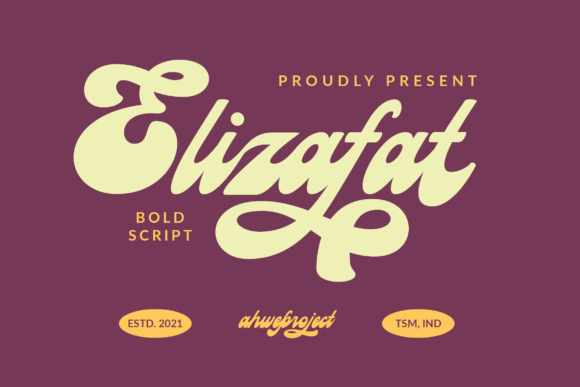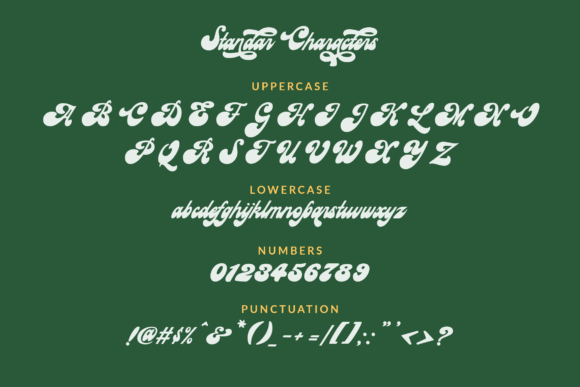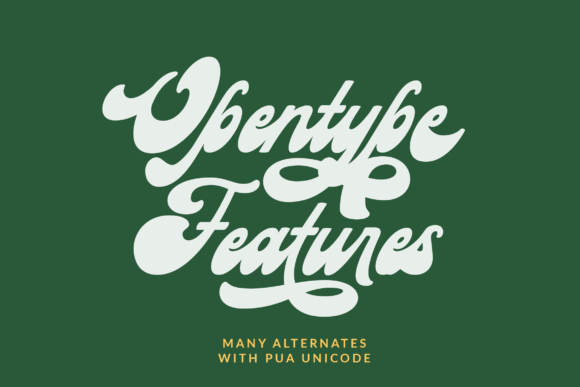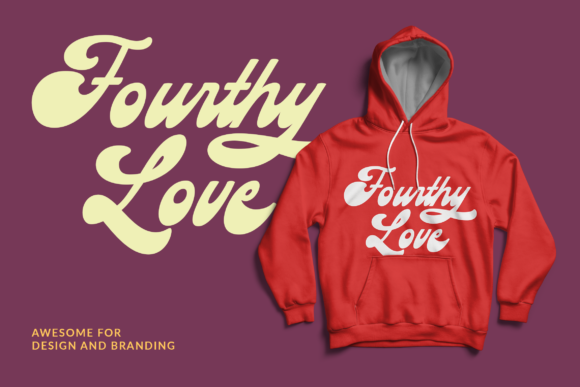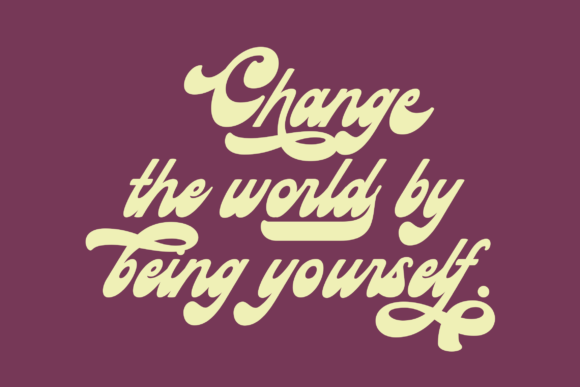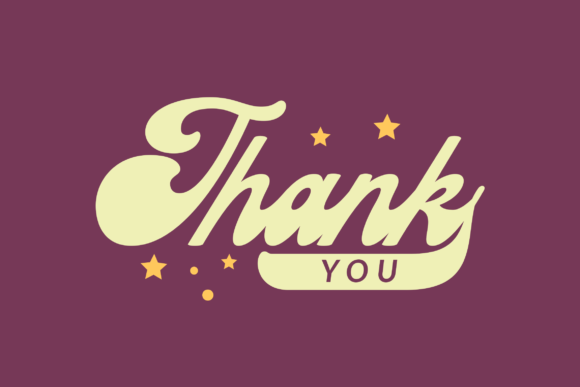
The Perfect Blend of Style and Nostalgia: Unveiling the Elizafat Font
Have you ever been stuck on a design project, searching for that perfect font to bring your vision to life? You know, that one font that screams ‘I’m a creative genius’ and makes your design stand out from the crowd? Well, we’ve got the solution for you! Introducing the Elizafat Font, a stunning handwritten font designed to give your headlines and logotype projects a stylish and bold touch.
The Elizafat Font is more than just a pretty face; it’s a powerful tool that can add tons of character to your designs. With its strong and confident feel, this font is perfect for designers who want to make a statement. Plus, its PUA encoding means you can access all of the glyphs and swashes with ease, making it a valuable addition to any designer’s toolkit.
Elizafat Font Key Features
- Font Family: Elizafat Font is a script font family, designed for use in formal and elegant typography.
- Character Set: Elizafat Font includes a comprehensive character set, supporting multiple languages and providing a wide range of glyphs, including ligatures and swashes.
- Unique Characteristics: The font features a unique, elegant script style with intricate connections between letters, making it perfect for formal invitations, wedding stationery, and other special occasions.
Elizafat Font Review
I recently had the chance to work with the Elizafat Font, and I must say, it’s a unique and interesting addition to any design project. ✨ Here are some of the things that work well:
- Elizafat Font has a distinct, elegant style that can add a touch of sophistication to any design.
- The font is highly customizable, allowing designers to adjust the weight, width, and other parameters to suit their needs.
- Elizafat Font supports a wide range of languages, making it a great option for multilingual projects.
However, like any font, Elizafat has its limitations. ⚠️ Here are a few things to keep in mind:
- The font may not be suitable for body text, as it can be a bit too ornate and difficult to read at smaller sizes.
- Elizafat Font may not be the best choice for projects that require a very modern or minimalist aesthetic.
Overall, I’d say that Elizafat Font is a solid addition to any designer’s toolkit. While it may not be perfect for every project, it’s definitely worth considering for designs that require a touch of elegance and sophistication.
The Elizafat font is ideal for creating elegant, cursive text for wedding invitations, greeting cards, and other formal documents. To get the most out of it, use it sparingly to add a touch of sophistication and elegance to your designs.